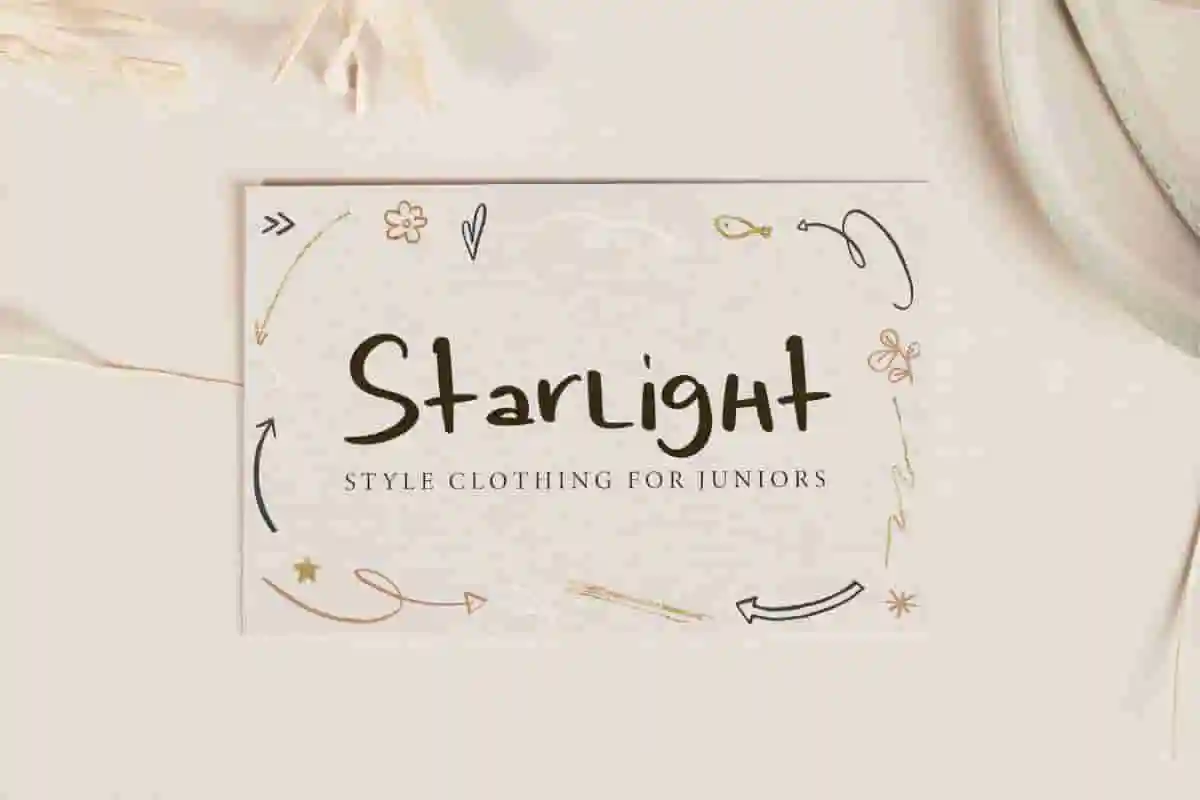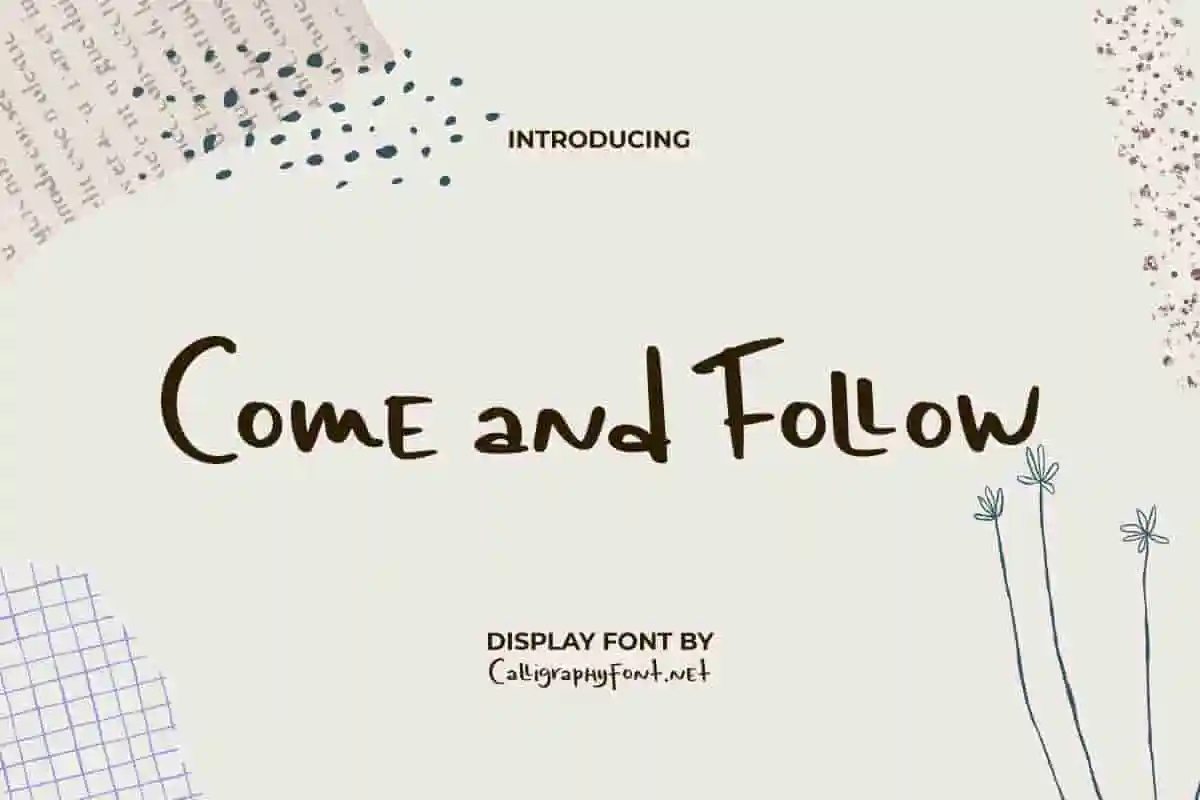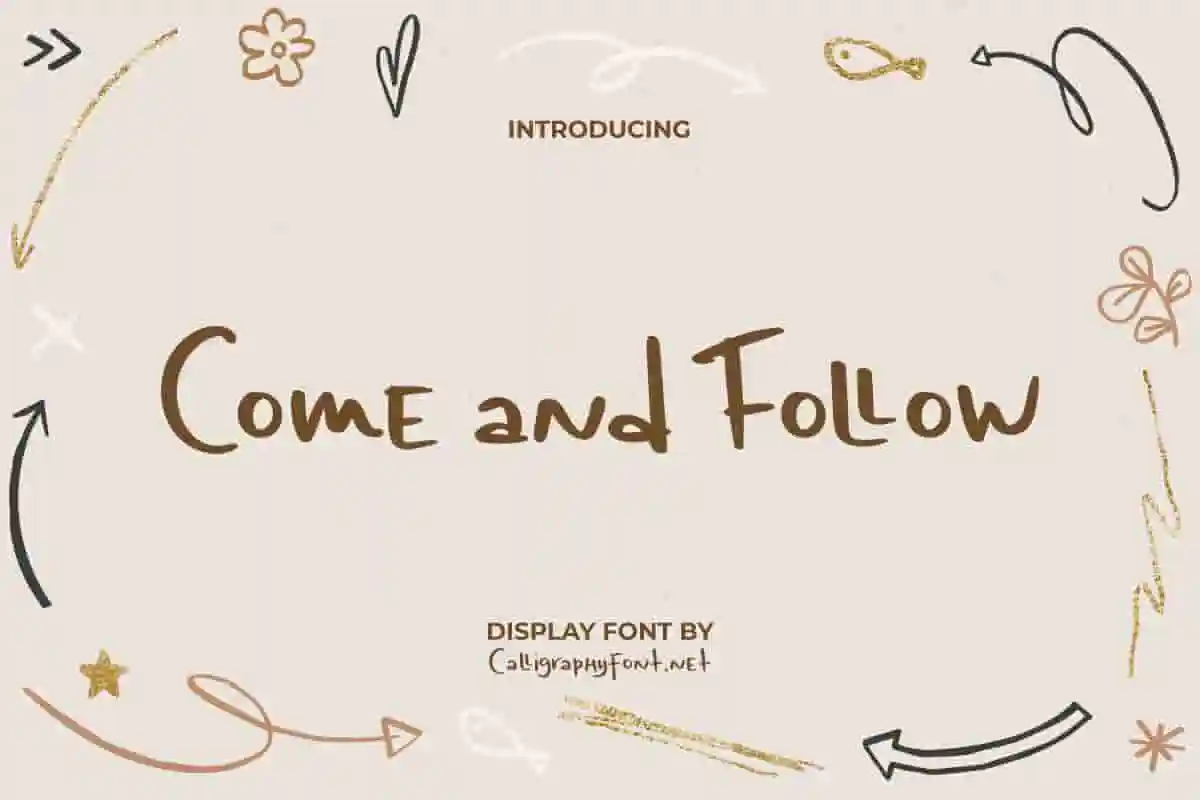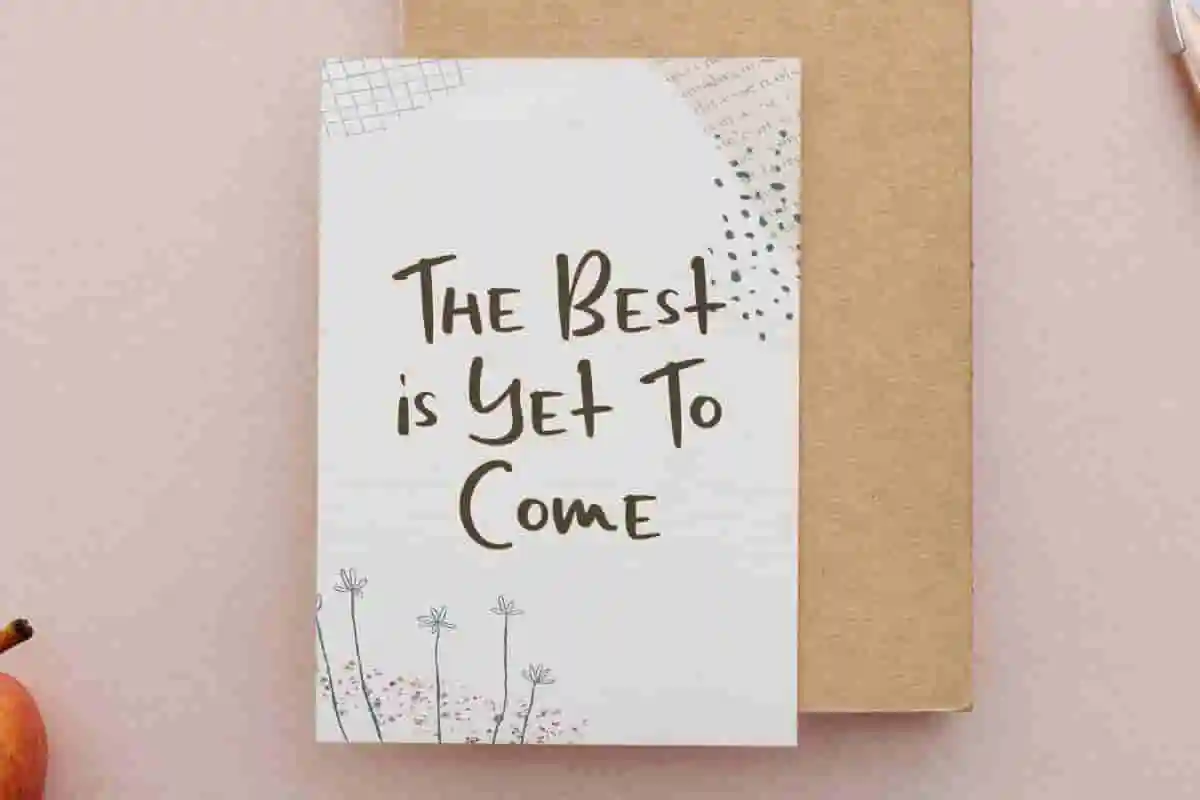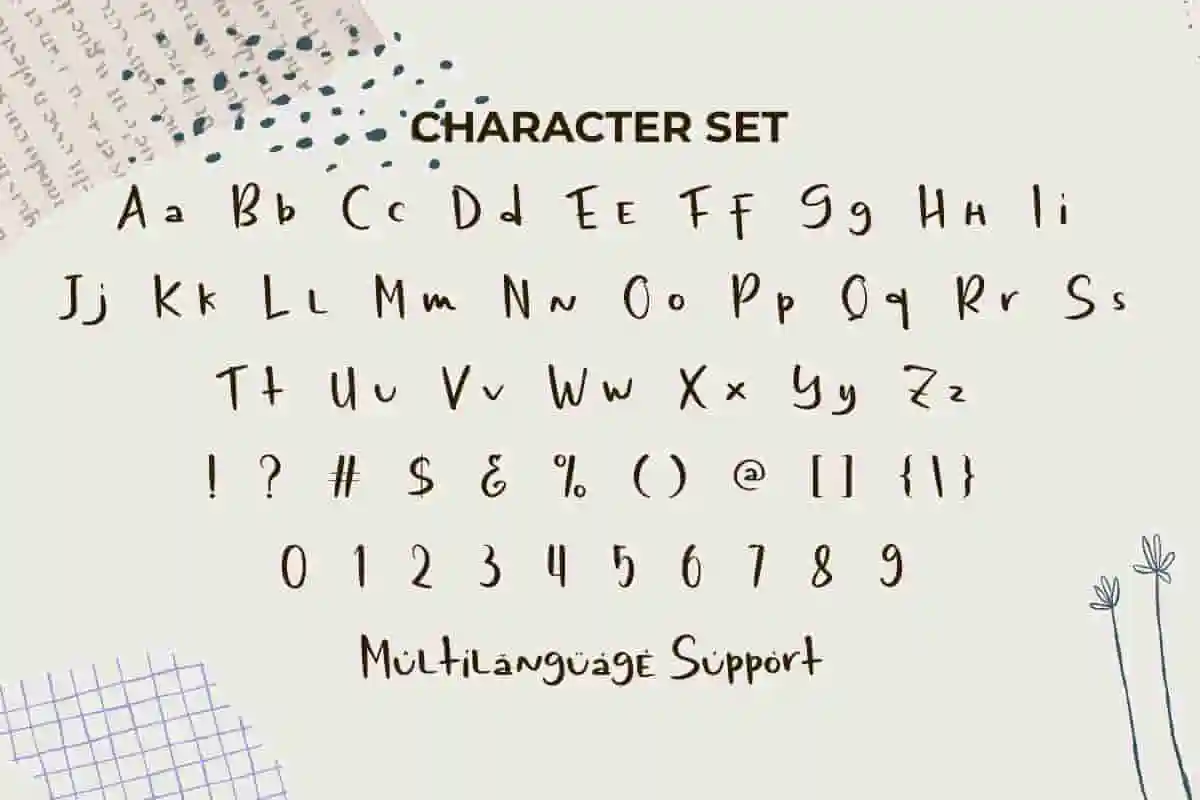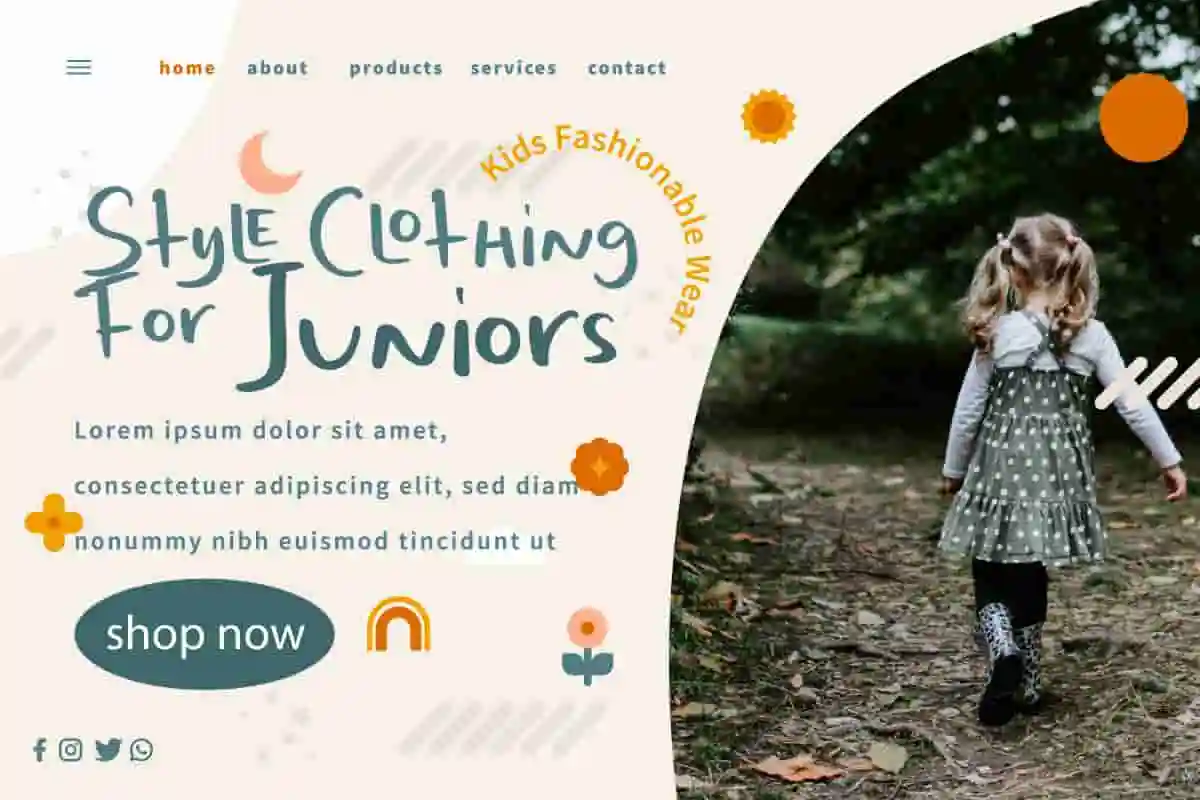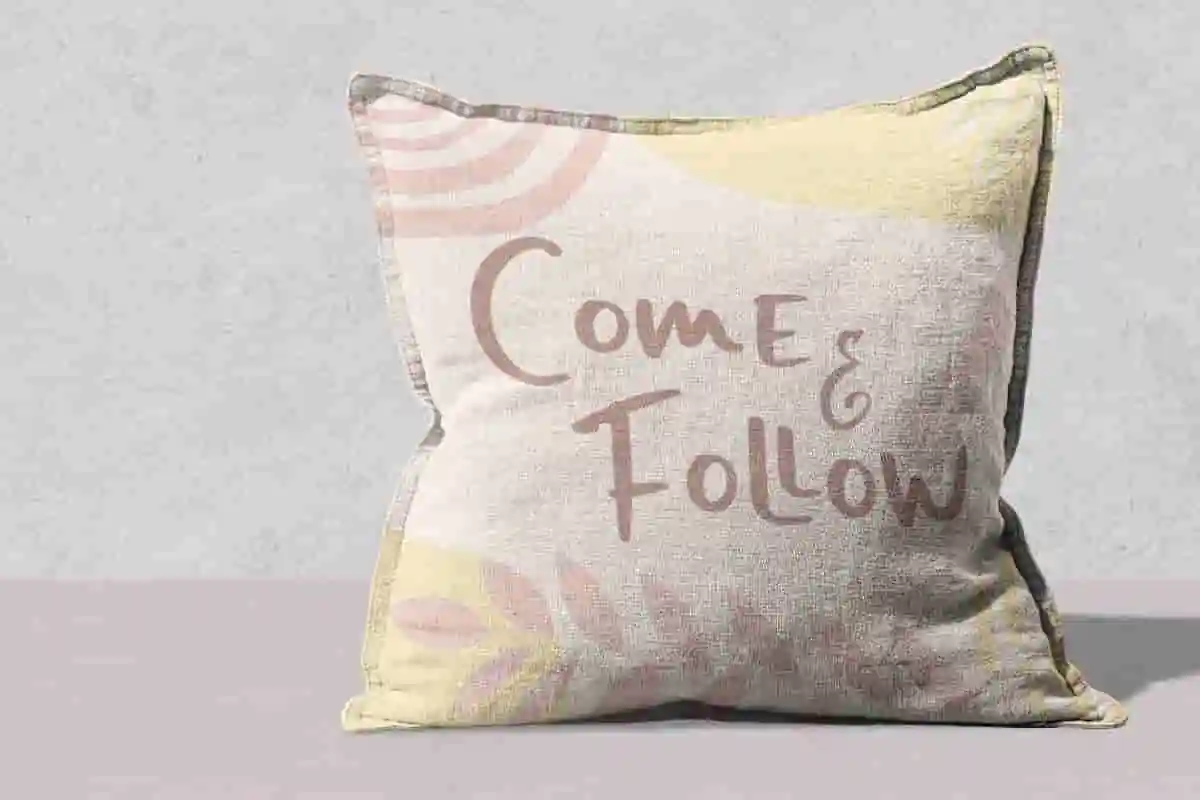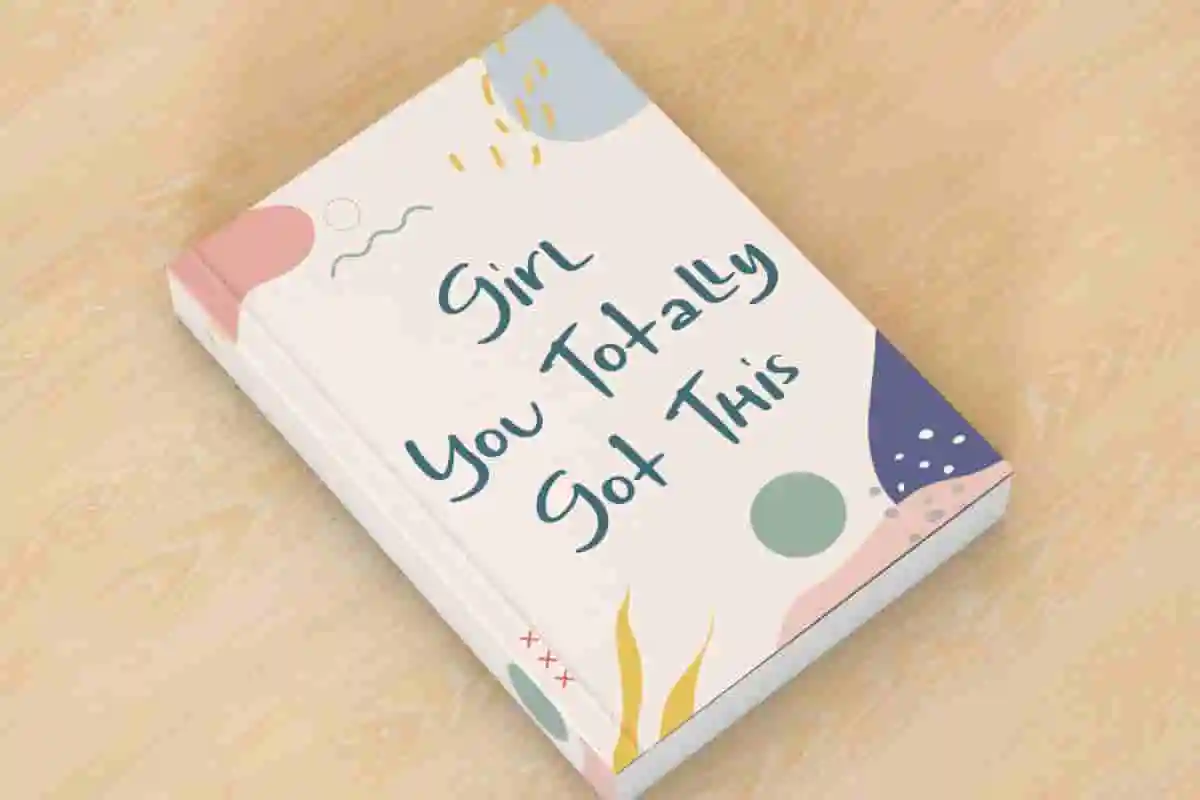
Come And Follow Font
Come And Follow Font is a cute display font that looks realistically handmade touch! It’s great for delightful and casual branding, logos, notes, posters, quotes, social media, and others.
Come And Follow Font is a fun and friendly display font that brings a handcrafted touch and will brighten up any of your designs, such as blogs, brand identity, brochure, business cards, cover, flyer, greeting cards, header, invitation, logo design, pamphlet, quotes, screen print, title, website, etc. This versatile font is great for both formal and informal events!
Come And Follow Font looks simple and modern which is uplifting and happy, it allows its users to create unique and customized typography. It’s perfect for any industrial project for a playful look, such as accessories and toy stores, architect, bookstore, cafe, design interior, entertainment, fashion, florist, furniture, gifts and merchandise, movie, playground, printing, publishing, retail, writer, and more.
Come And Follow Font comes with a complete set of Uppercase and Lowercase Basic Characters, Number, a large range of Punctuation, Symbol and Ligature. It is supported with multilingual characters and ready to use both on Windows machine or Mac with simple installations. It’s tested to work well in the Adobe Apps (Illustrator, Adobe InDesign, Adobe Photoshop) CorelDraw, and others. PUA Encode Characters means you can access all the characters easily – Fully accessible without additional design software.